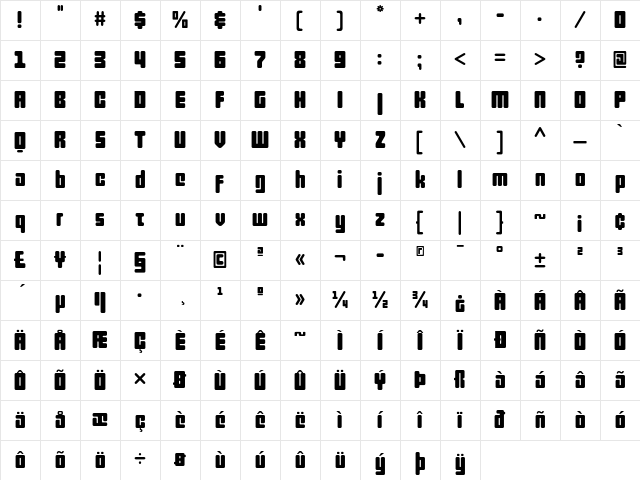
Labyrinthe AGI Melaina Free Font
Labyrinthe AGI Melaina
Style: Melaina
Foundry: AGIType
Designer: Andr￿ G. Isaak
Complete Labyrinthe AGI Melaina glyph index. Displaying only characters natively supported by Labyrinthe AGI Melaina font.
Design Context for Labyrinthe AGI
Labyrinthe AGI is a composed and adaptable typeface that performs quietly and consistently across a wide range of design contexts.